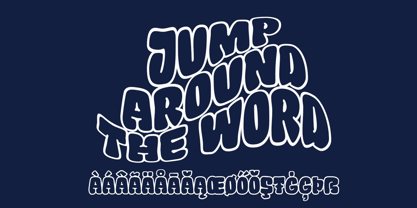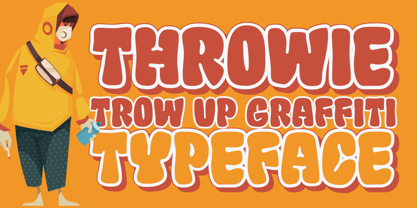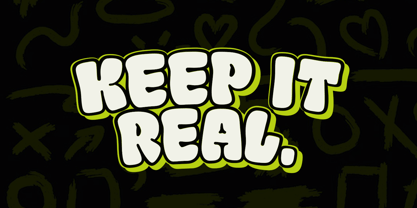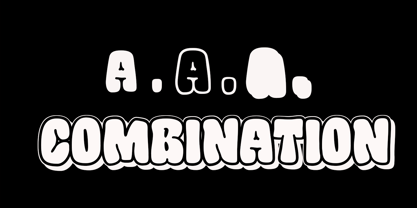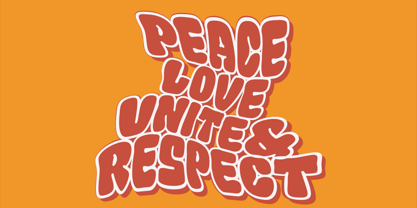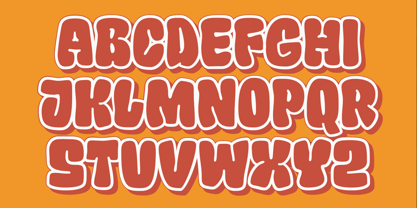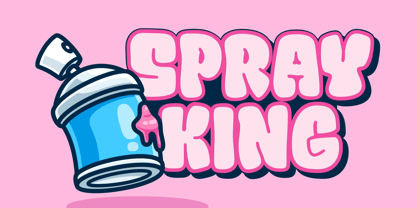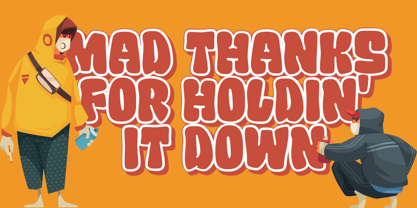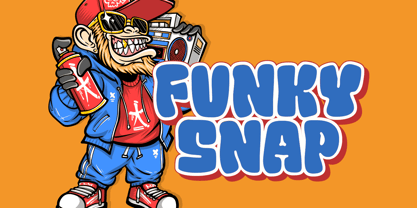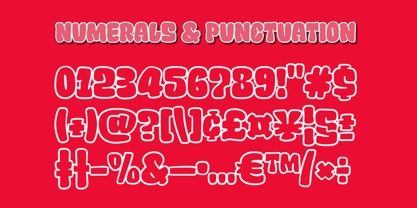
Throwie
by MMMA Creative
The Throwie Font Family was designed by Muhammad Ridha Agusni, Muhammad Mevlana Maliq Azizi and published by MMMA Creative. Throwie contains 3 styles and family package options.
Throwie is a loud, playful typeface straight outta the streets. Think fat marker tags and quick spray-can throw-ups. It’s got that chunky, bubbly vibe with letters that feel hand-done and full of swagger. Every curve, every wobble is intentional, giving it that raw, unfiltered energy. The font packs in stylistic alternates so you can switch it up and keep your layout looking fresh. Built-in 3D shadows and bold outlines give it a pop. You ain’t just reading it, you’re feelin’ it. It’s got that gritty graffiti soul, but there’s a fun, its vibe just right for anything from streetstyle drops to edgy event posters. Throwie’s not here to be clean or quiet, it’s loud, proud, and ready to tag your project with serious attitude.